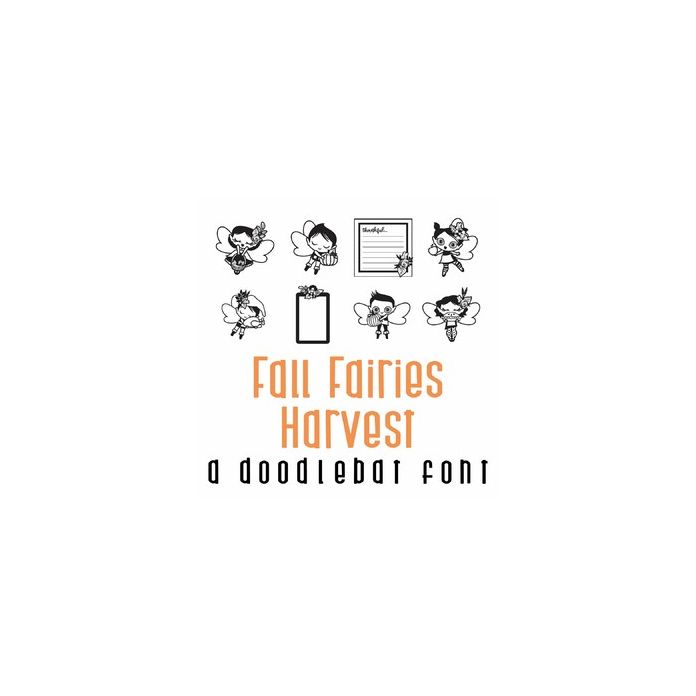
This fun doodlebat font features 26 fall fairies ready for a Thanksgiving feast. Perfect for cards, gifts, decor, crafts, scrap book pages, planner stickers and more!